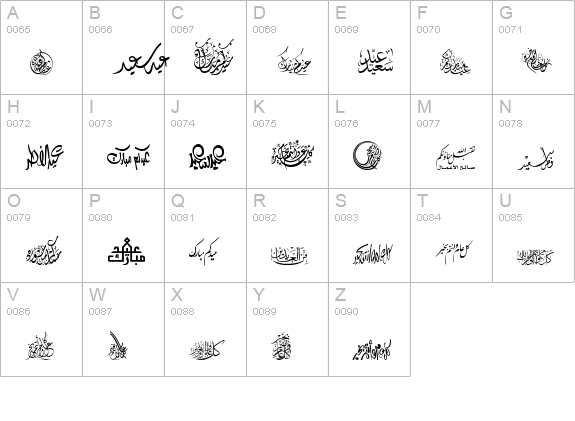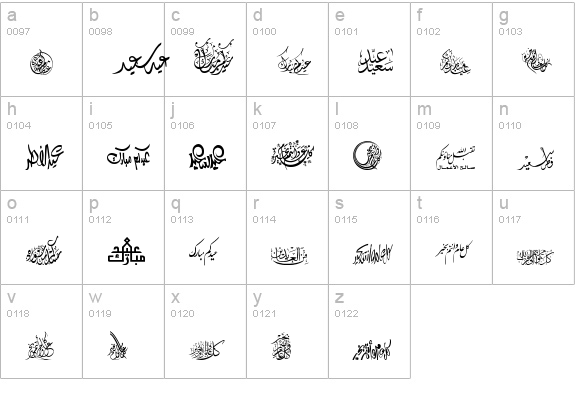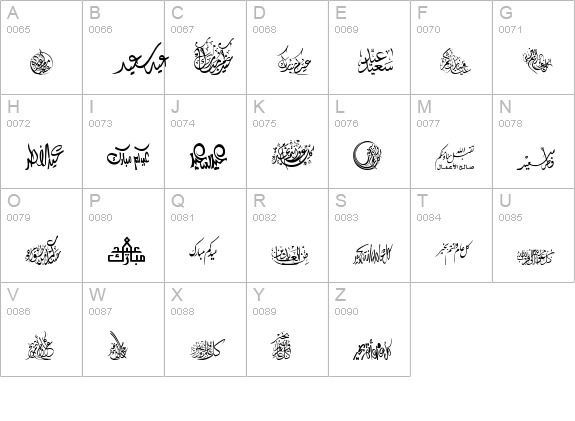
Felicitation_Arabic Feasts font is a stunning and intricate display font that celebrates the beauty and richness of Arabic culture. With its elegant curves and intricate details, this font is perfect for adding a touch of sophistication to any design project. Whether you're designing a wedding invitation, a logo, or a poster, Felicitation_Arabic Feasts font will make your text stand out and captivate your audience. Its unique and artistic design pays homage to the traditional Arabic calligraphy, while also adding a modern twist. What makes Felicitation_Arabic Feasts font even more special is that it is free! Yes, you read that right. This beautiful font is freely available to download at FontsMarket.com. You can now enjoy the beauty and elegance of Felicitation_Arabic Feasts font without any cost. Designed with versatility in mind, this font comes in a variety of weights and styles, allowing you to experiment and create different looks and moods. Whether you want a bold and impactful headline or a delicate and refined script, Felicitation_Arabic Feasts font has got you covered. So why wait? Download Felicitation_Arabic Feasts font today and let its timeless beauty transform your designs into works of art. With its free availability at FontsMarket.com, you have the opportunity to enhance your projects with this exquisite font without breaking the bank. Embrace the elegance of Arabic calligraphy with Felicitation_Arabic Feasts font and take your designs to the next level.